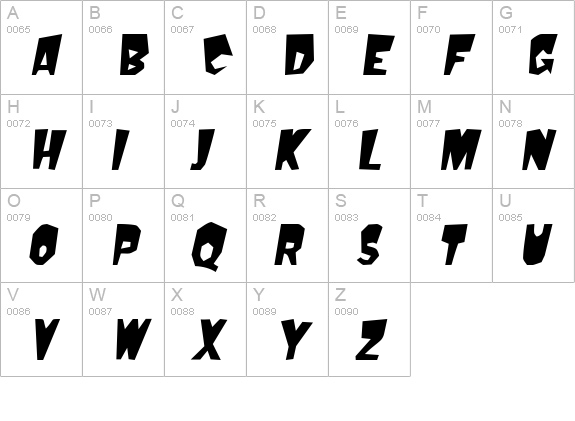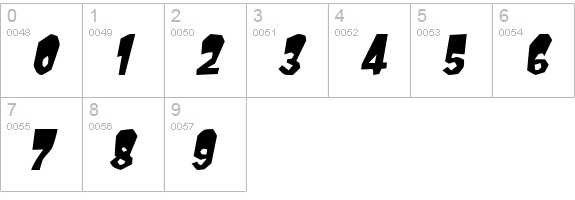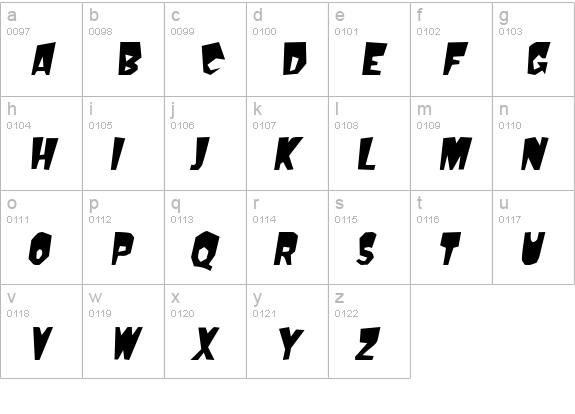
Mondo Oblique is a distinctive, italic variant in the Mondo typeface family \xE2\x80\x94 well suited to design and typography projects.
Mondo Oblique is a modern and stylish font that exudes sophistication and elegance. With its unique slanted design, this font is perfect for adding a touch of flair to any project. The sleek lines and sharp angles of Mondo Oblique make it a versatile choice for a wide range of design applications. What sets Mondo Oblique apart is not only its striking appearance but also its versatility. Whether you're designing a sleek logo, eye-catching poster, or stylish branding materials, this font will add a touch of contemporary sophistication to your work. And the best part? Mondo Oblique is available for free download at FontsMarket.com. So, if you're looking to elevate your designs with a modern and stylish font that stands out from the crowd, look no further than Mondo Oblique. Download it today and let your creativity soar!